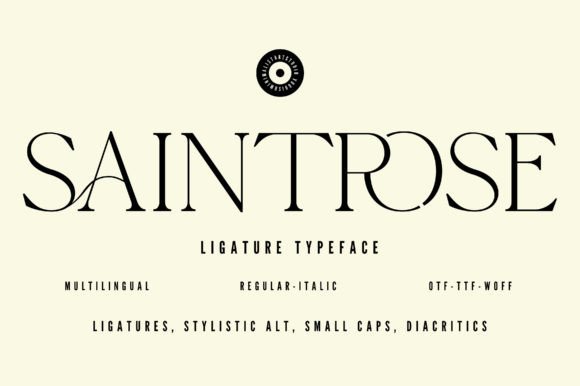
Journey into the world of sophistication, elegance, and timeless beauty with "SaintRose," the serif font that will transform your design aspirations into reality. Experience the exquisite craftsmanship of each letterform, meticulously designed to evoke a sense of luxury and refinement.
With its intricate details and timeless appeal, "SaintRose" is the perfect font for any project seeking to exude an air of sophistication. Let your words dance upon the page, enveloped in the allure of this captivating typeface.
Whether you're crafting a wedding invitation, designing a captivating logo, or creating a website that demands attention, "SaintRose" will elevate your creations to new heights. Its versatility knows no bounds, allowing you to explore a wide range of creative possibilities.
Indulge in the beauty of "SaintRose" and let your imagination soar. Discover the power of a font that speaks volumes, leaving an indelible mark on the hearts and minds of your audience. Embrace the allure of elegance and make your designs shine with the brilliance of "SaintRose."